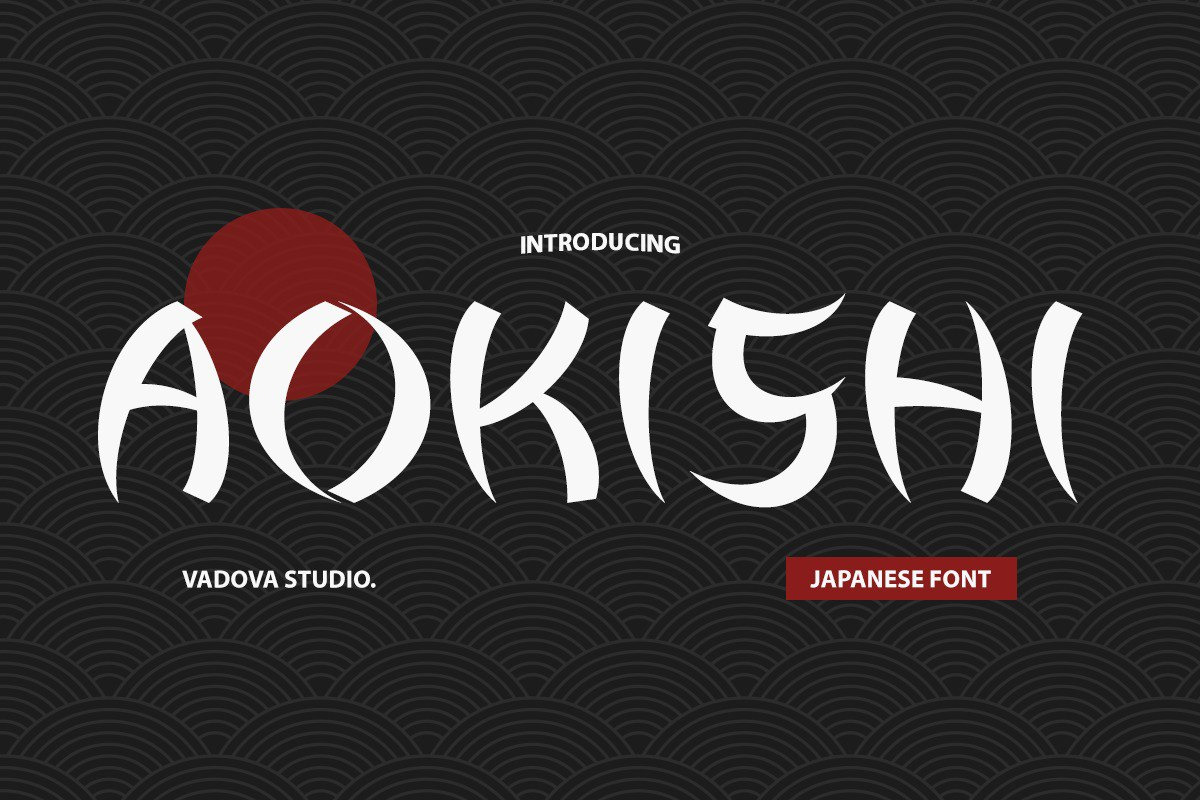
Aokishi Japanese Elegance Font
Aokishi blends the mystique of Japanese culture with modern design finesse a striking serif display font inspired by calligraphy, traditional brushwork, and the serene beauty of Eastern typography. With its sculpted strokes, handcrafted elegance, and poetic rhythm, Aokishi brings both soul and structure to every creative project. Designed for brands, menus, books, and digital visuals, Aokishi is perfect for creators who want to express heritage with a bold, contemporary twist.
Built to evoke emotion and authenticity, Aokishi enhances your storytelling with visual depth and character. Whether you're designing a sushi bar identity, creating Instagram quote posts with flair, or laying out a fashion editorial with cultural edge, this font delivers high visual impact with effortless grace. Its form strikes harmony between artistic energy and clean legibility, creating an immersive typographic experience.
Aokishi is more than a font it’s an experience, a visual story told through the language of heritage and design. With every curve echoing a brushstroke, and every form shaped by intent, it captures the magic of cultural storytelling through typography.
- Brush-inspired elegance with modern serif influences for refined cultural expression
- Stylized, handcrafted strokes that reflect traditional Japanese calligraphy
- Balanced letterform structure ideal for logo design, menus, branding suites, posters, and editorial titles
- Semi-serif, display styling with organic rhythm and visual harmony
- Multilingual support for global branding flexibility
- Clear legibility in stylized form — traditional yet professional
- Ideal for travel, food, luxury, and cultural projects
Relevance and Use Cases is editorial use, restaurant branding, travel-inspired graphics, or minimalist packaging with an exotic flair. Aokishi feels traditional yet modern, making it suitable for both niche cultural identities and broad commercial appeal.
Add Aokishi to your design toolkit and bring Eastern elegance to life make your words not just seen, but felt.